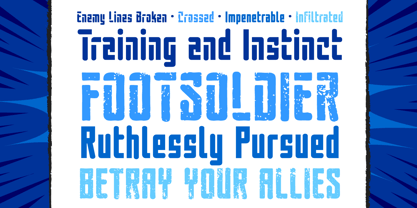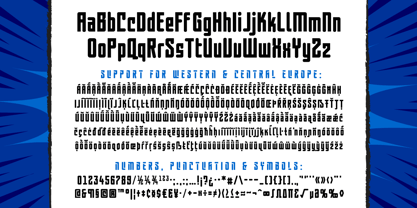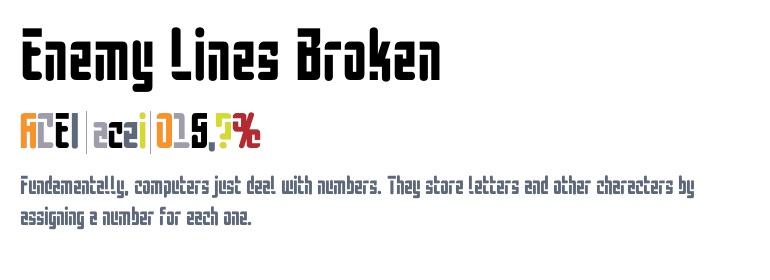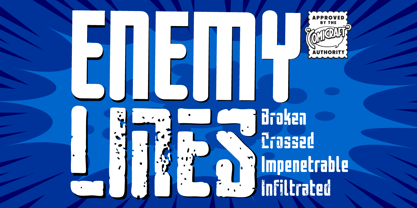
Enemy Lines Font
This Enemy Lines Font is perfect for military-themed designs, action movie titles, gaming interfaces, tactical gear branding, war-themed entertainment, combat sports promotions, survival equipment packaging, strategic planning materials, defense contractor communications, and intense competitive branding.
What makes this Enemy Lines Font exciting is its commanding tactical aesthetic that captures the intensity and precision of military operations. The font features sharp, angular letterforms with aggressive styling that conveys strength, determination, and strategic focus. Its battle-tested appearance and militant character make it ideal for brands that need to communicate power, tactical superiority, and unwavering resolve in competitive environments.
The Enemy Lines Font family includes regular, bold, and stencil weights with tactical alternates and military-inspired variants. This comprehensive combat-ready font family provides designers with the arsenal to create powerful, authoritative typographic compositions that maintain the militant character essential for high-impact brand communications and tactical applications.
Gaming companies and tactical brands consistently choose Enemy Lines Font Free Download for projects requiring maximum intensity and military authenticity. This font's distinctive combat character perfectly captures the adrenaline and strategic thinking that resonate with audiences seeking authentic military aesthetics and competitive edge in gaming and tactical markets.
The strategic construction of Enemy Lines Font showcases precision-engineered letterforms with optimized spacing for maximum impact and readability. Its militant appearance ensures consistent performance across all applications, from large-scale promotional displays to detailed tactical documentation requiring authoritative, battle-ready typography.
Professional designers appreciate how Enemy Lines Font delivers immediate authority and tactical intensity to brand communications. The font's aggressive nature allows organizations to communicate strength and strategic advantage while maintaining the professional quality necessary for effective positioning in competitive military and gaming markets.
The versatile applications of Enemy Lines Font extend across all contexts where tactical precision and competitive advantage are paramount. Its combat character makes it particularly effective for defense-related businesses, competitive gaming brands, and action-oriented entertainment that needs to project strategic superiority and tactical excellence.
Whether developing branding for tactical equipment manufacturers or creating promotional materials for competitive gaming events, Enemy Lines Font Free Download provides the militant typographic foundation that combat-ready brands need to communicate their tactical superiority, strategic focus, and the unwavering determination that defines victory in competitive battlefields.